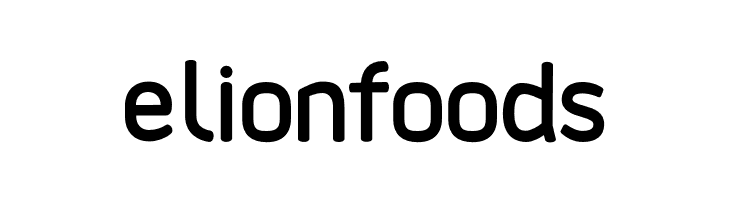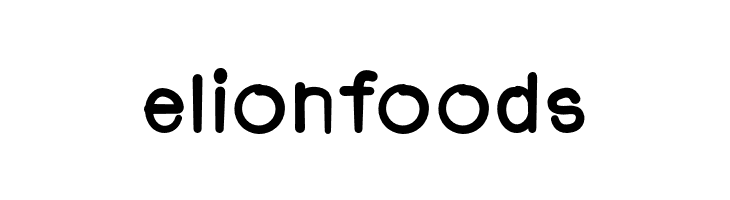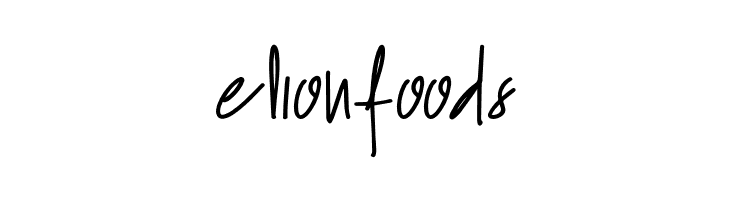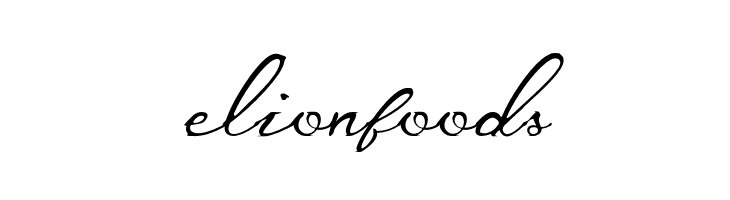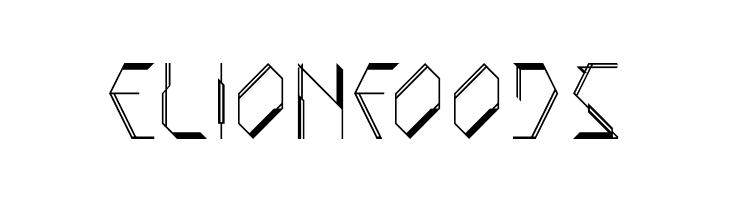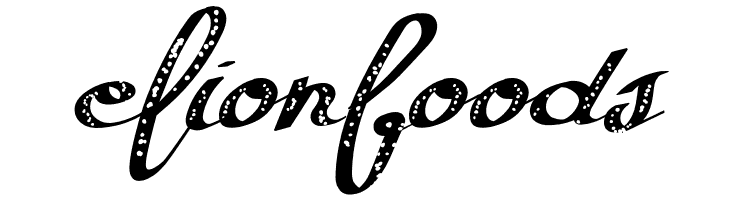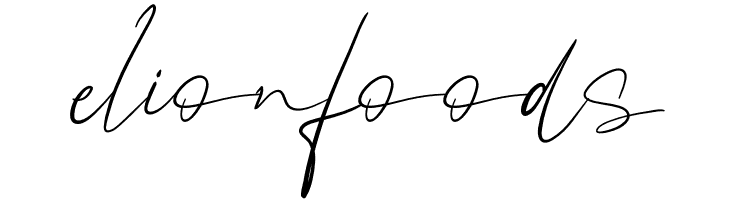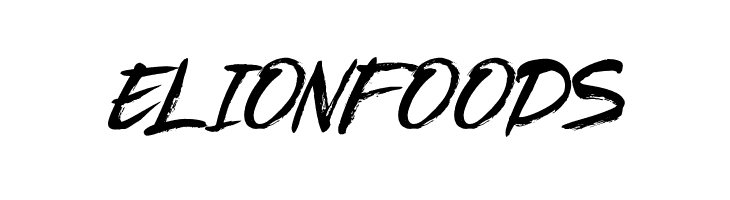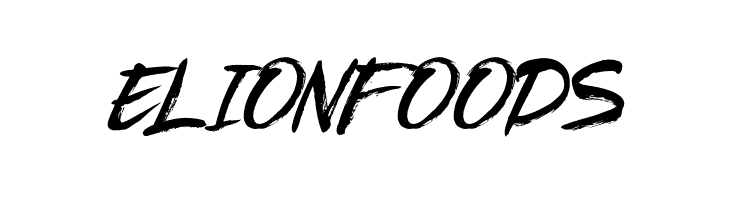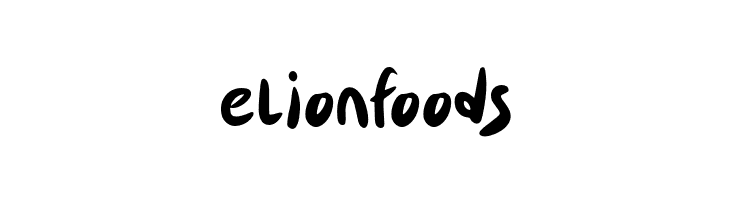
A modern, rounded font with a clean and approachable design.
A bold, playful font with rounded edges and a hand-drawn feel.
A casual handwritten font with a lively and dynamic style.
Elegant, flowing script with a handwritten style.
A futuristic, geometric font with sharp angles and clean lines.
A decorative script font with a distressed, vintage look.
A fluid and elegant handwritten script with dynamic movement.
A bold, brush-style font with an expressive, handwritten appearance.
A bold, brush-style font with dynamic, expressive strokes.
A bold, handwritten font with a playful and dynamic style.